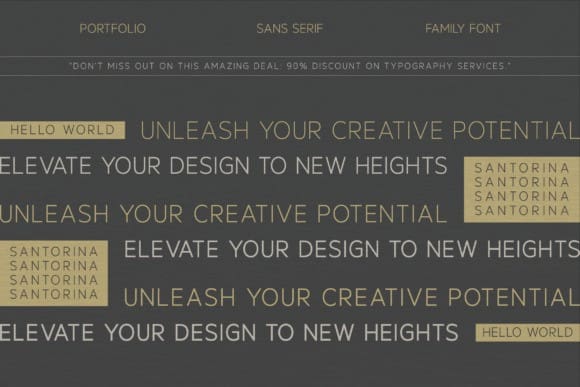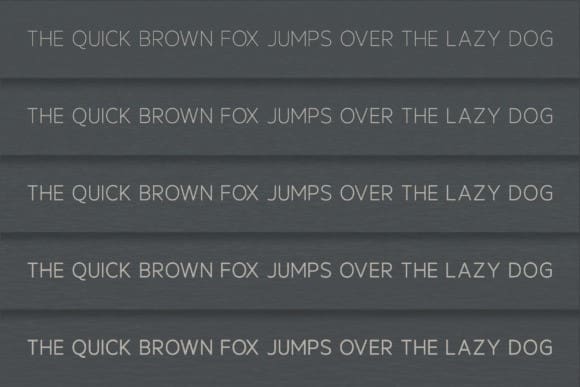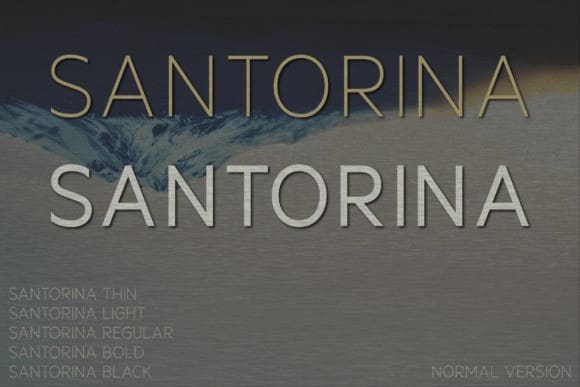
Santorina Font Family
Santorina Font Family, a symphony of elegance and simplicity. With five uniquely weighted variants, this contemporary sans serif font collection marries the essence of modern style and opulent luxury. Painstakingly sculpted to perfection, the Santorina Font elevates your designs – from magazine layouts, unique logos, to cinematic posters – with its refined charisma. This font selection is a testament to perfect harmony between sophistication and minimalism, designed to infuse your projects with an enduring allure. Immerse yourself in the transformative power of the Santorina Font Family and lend your designs a timeless appeal.